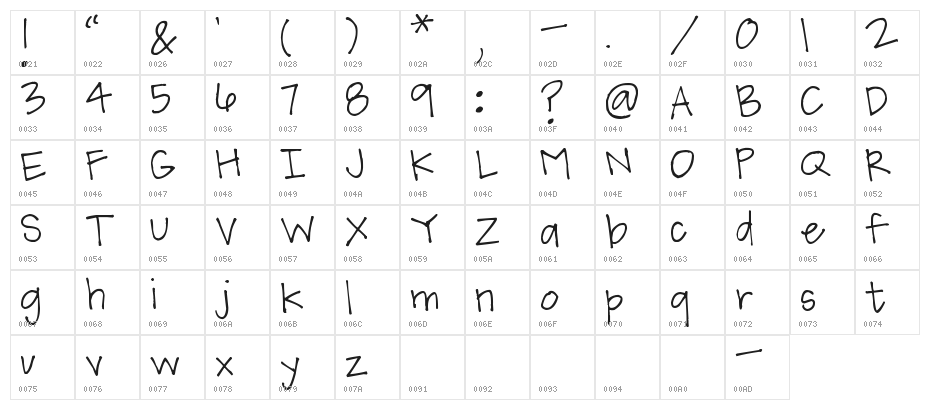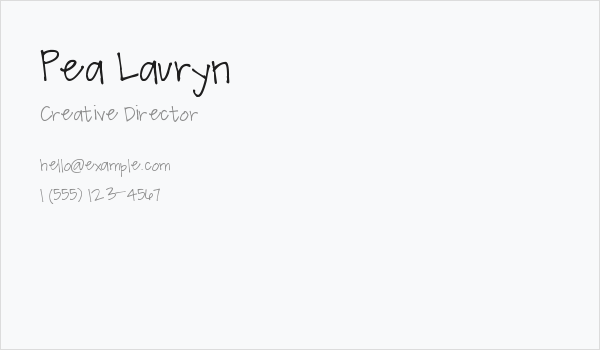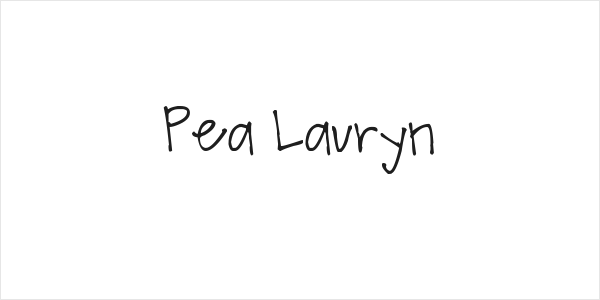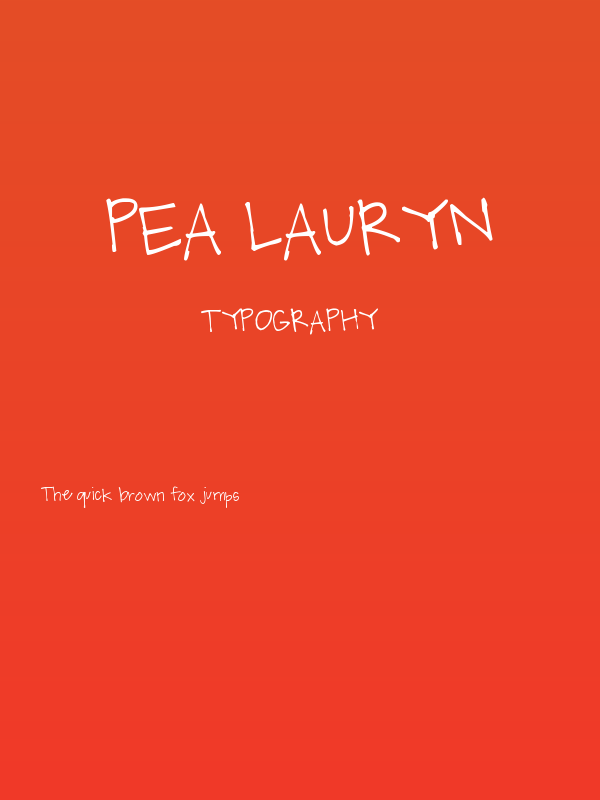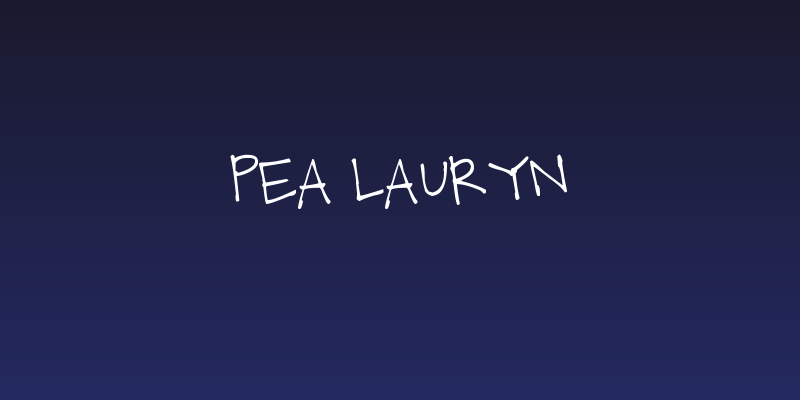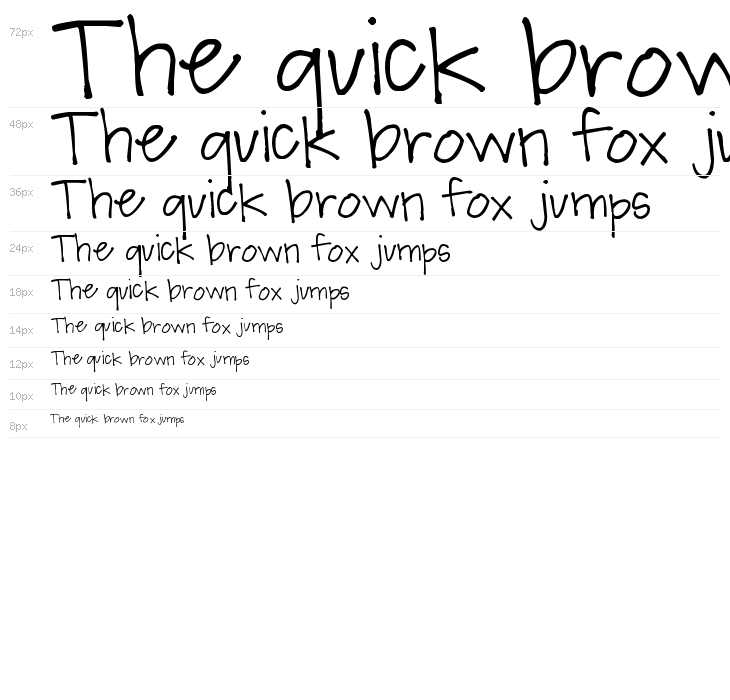
Pea Lauryn Font
Pea Lauryn Description
This playful and informal font features a handwritten style with a casual, friendly appearance. The characters are slightly irregular, adding a personal touch that mimics natural handwriting. The strokes are consistent in thickness, giving it a uniform look while maintaining a relaxed vibe. The letters are slightly tilted, enhancing the informal feel. This font is perfect for projects that require a personal or whimsical touch, such as greeting cards, invitations, or children's book covers. Its legibility and charm make it suitable for both digital and print media.
| Proposed Projects | Greeting cards, invitations, children's book covers, personal blogs, and casual branding. |